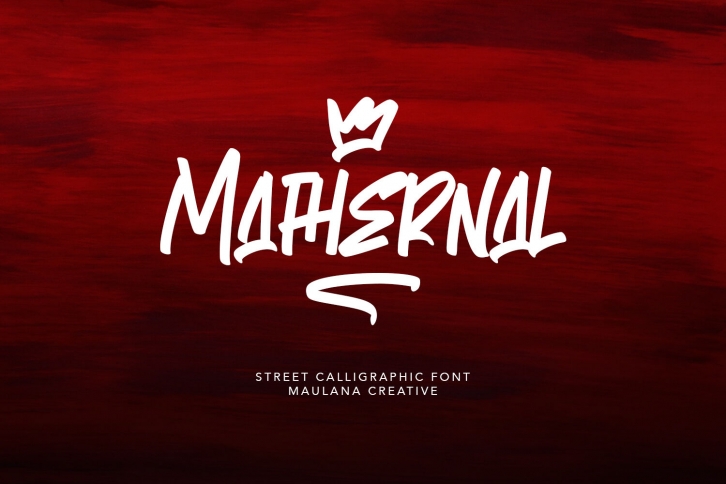
Mathernal Street Calligraphic Font Download
Give your designs an authentic handcrafted feel. "Mathernal" is perfectly suited to signature, stationery, logo, typography quotes, magazine or book cover, website header, clothing, branding, packaging design and more.
- Alternates